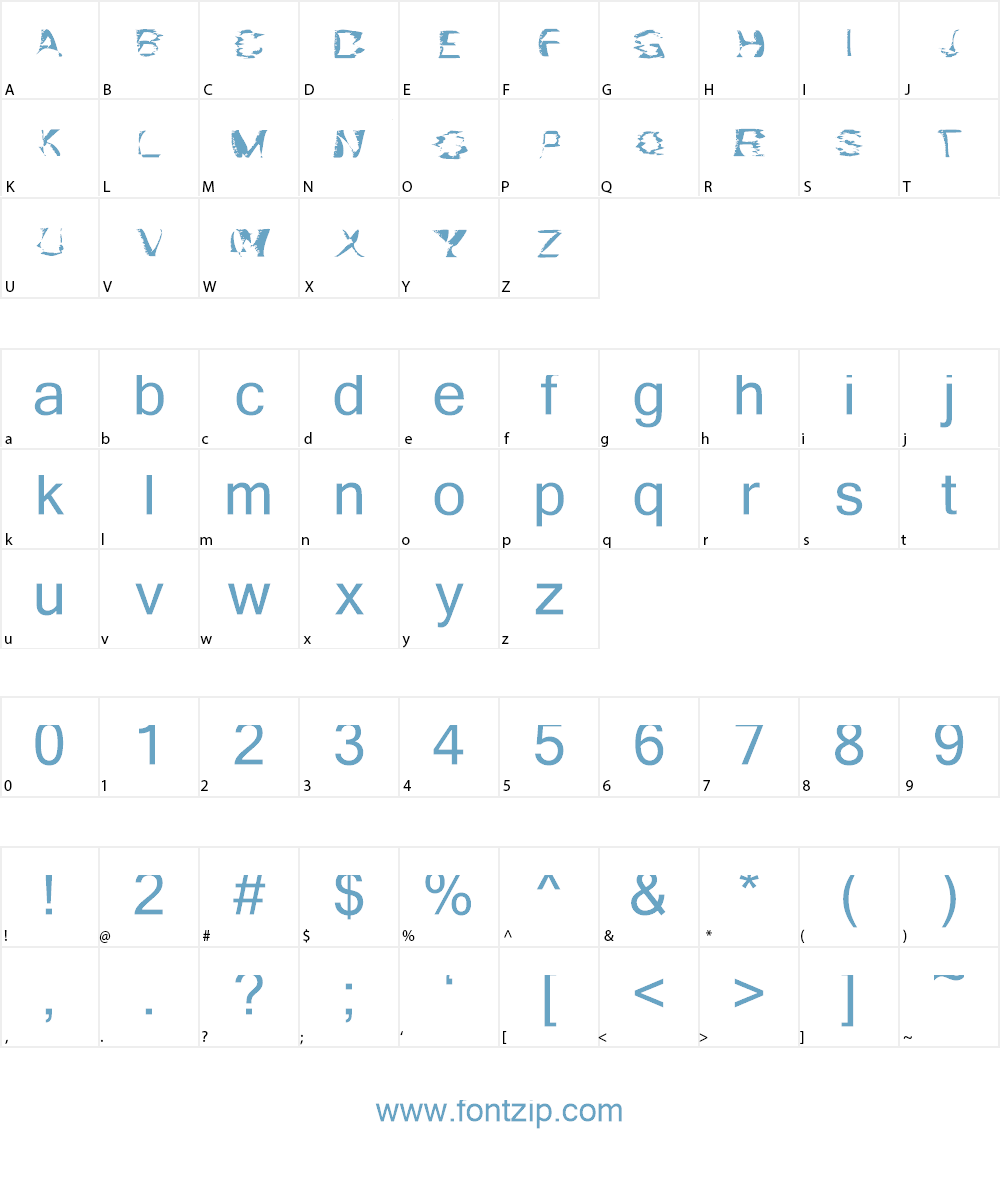
Who doesn’t like Glitch Art? To celebrate everything glitchy here is a font to match your lovely artwork. Use the whole family of Light, Regular, Bold and Bold Condescend to to create an even better looking modern messed up design piece.